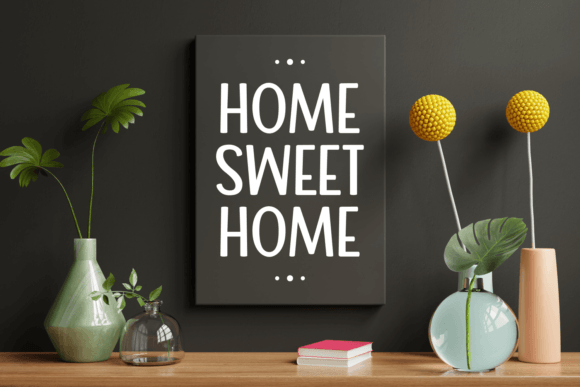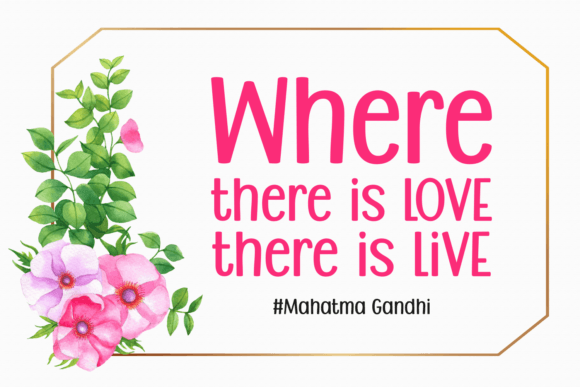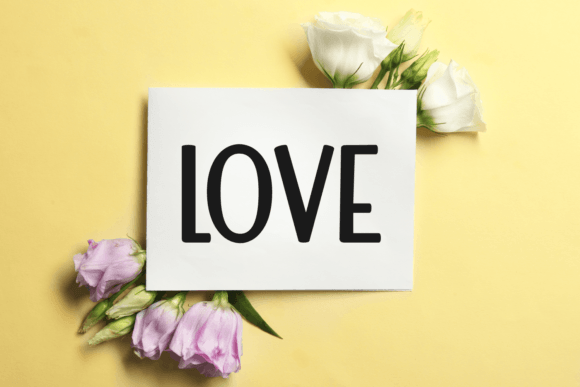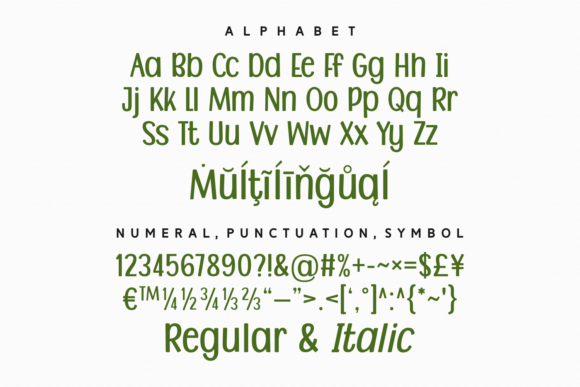
Grateful in Heart Font
About Grateful in Heart Font
“Grateful in Heart: Where Playful Energy Meets Handwritten Charm in Typography
Introducing Grateful in Heart, a delightful handwritten font that captures the essence of playful energy and heartfelt charm. With its whimsical style, Grateful in Heart is the perfect choice for any design project you wish to bring to life! By adding this font to your creative endeavors, you’ll notice the powerful effect it has on your audience, instantly infusing your projects with a burst of playful joy and genuine warmth.
The appeal of Grateful in Heart lies in its playful handwritten style, where each letter exudes a sense of spontaneity and genuine charm. Its lively strokes and playful detailing create a visual energy that captures the essence of handwritten delight. Imagine your creative projects adorned with Grateful in Heart’s whimsical letterforms, radiating with a sense of playful joy and heartfelt sincerity. Picture your designs featuring its charming handwritten flair, instantly connecting with your audience on an emotional level. With Grateful in Heart, your projects come alive with a contagious sense of enthusiasm, making them visually captivating and emotionally resonant.
One of Grateful in Heart’s standout features is its ability to evoke genuine emotions and create powerful connections with your audience. Its playful energy instantly captures attention, drawing viewers in and creating a memorable experience. Whether you’re designing social media graphics, invitations, posters, merchandise, or any creative project, Grateful in Heart adds a touch of playful delight that leaves a lasting impression on the hearts of your audience.
Moreover, Grateful in Heart is more than just a font; it’s a celebration of joyful creativity and heartfelt connection. Its playful energy and handwritten charm resonate with individuals who appreciate the beauty of genuine expression, making it a favorite among designers and enthusiasts seeking a font that exudes playful authenticity. Grateful in Heart becomes a symbol of your creativity, allowing you to create designs that not only capture attention but also create meaningful and memorable moments.
In a world where playful energy meets handwritten charm, Grateful in Heart helps you make a statement. It speaks the language of spontaneity and heartfelt delight, resonating with those who appreciate the beauty of joyful creativity. Whether you’re designing for social media, invitations, posters, or any creative endeavor, Grateful in Heart becomes your trusted companion, guiding you toward design excellence.